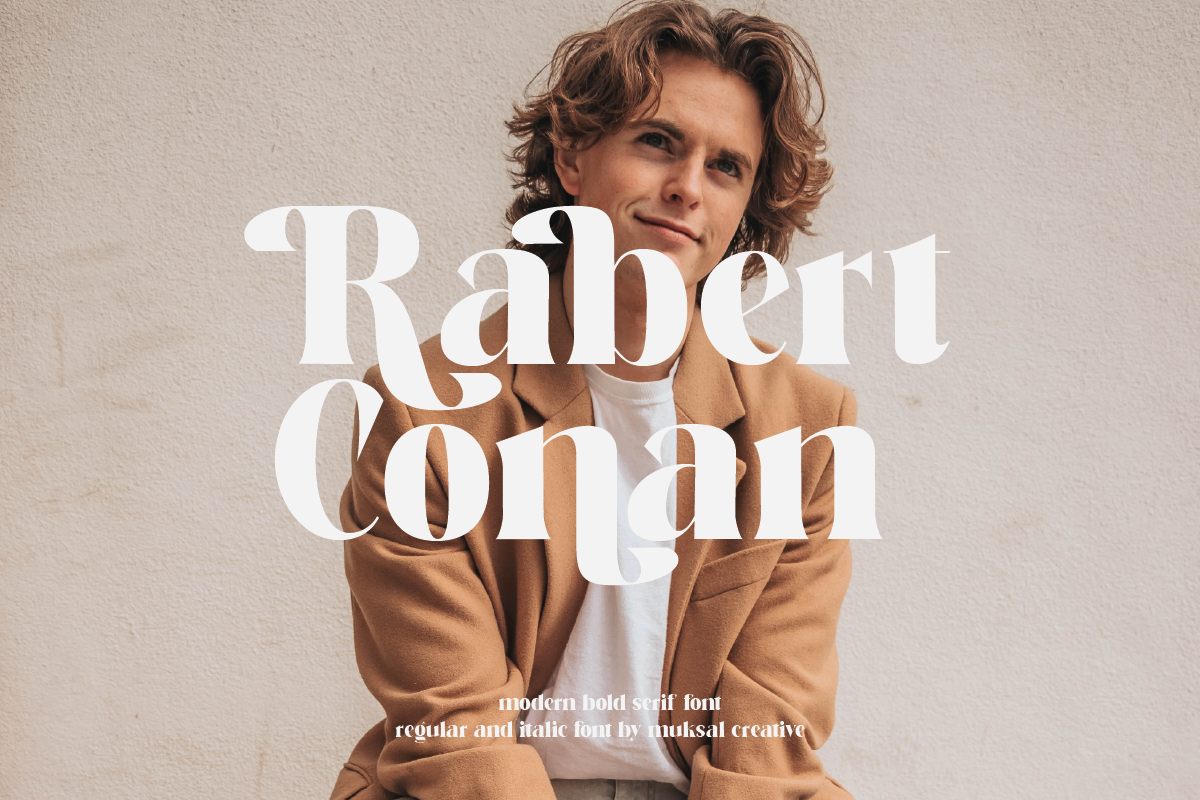
Discover the beauty of Rabert Conan, a stunning serif font that exudes sophistication and elegance. With its exquisite and stylish characters, this font is an excellent choice for creating chic and feminine designs that demand a touch of uniqueness.